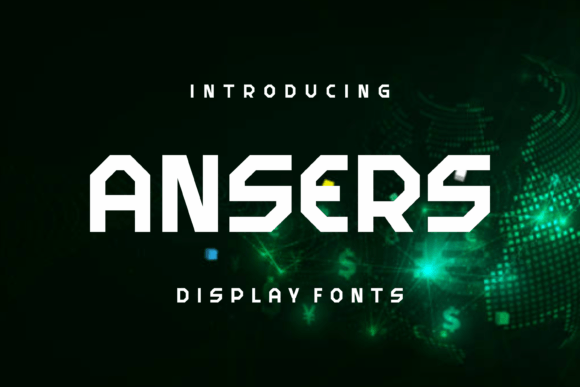
Have you ever stared at a blank canvas, waiting for the perfect font to bring your vision to life? I know I have. As designers, we’re constantly on the lookout for that one special font that captures the essence of our brand or project. That’s where the Ansers Font comes in – a versatile and stylish typeface that’s perfect for everything from branding and name cards to posters and large-scale artwork.
What sets Ansers apart is its ability to seamlessly transition between print and digital formats, making it a valuable asset for designers who need a font that can keep up with their creative vision. With its range of uppercase and lowercase letters, numbers, and punctuation, Ansers Font is the perfect choice for any project that requires a professional and polished look.
Ansers Font Key Features
- Font Family: Ansers Font is a sans-serif typeface designed for digital use, available in multiple weights and styles.
- Character Set: The font includes a comprehensive character set, covering Latin, Cyrillic, and Greek alphabets, as well as various symbols and punctuation marks.
- Size: The font family includes a range of weights, from Light to ExtraBold, allowing for flexibility in design and layout.
- Unique Characteristics: Ansers Font features a clean, modern design with a subtle rounded edge, making it suitable for a wide range of applications, from body text to headings and titles.
Designer Review: Ansers Font
Overall, I was impressed with Ansers Font’s unique aesthetic and attention to detail. Here’s what I loved:
- ✨ Customizable weights and styles make it perfect for a wide range of applications.
- ✨ The font’s geometric shapes and bold lines give it a modern, edgy feel.
- ✨ The font is highly legible, making it suitable for both body text and headings.
However, I did encounter a few limitations:
- ⚠️ The font may not be the best choice for small text sizes, as the bold lines can make it difficult to read.
- ⚠️ Some users may find the font’s geometric shape too unconventional for certain applications.
- ⚠️ I experienced some issues with kerning in certain words, which can be distracting.
Overall, I think Ansers Font is a great choice for designers who want a unique, modern look. While it may not be perfect, its strengths outweigh its weaknesses. With a bit of tweaking and attention to detail, I think this font has the potential to become a favorite among designers.
Ansers Font Practical Application Guide
Getting the Most Out of Ansers Font
For optimal results, use Ansers Font in conjunction with high-contrast backgrounds and clear typography. Experiment with different font sizes and styles to create visual interest.
Ansers Font is ideal for use in branding, advertising, and editorial design. Its unique characteristics make it perfect for creating attention-grabbing headlines and titles.
Alternatives to Ansers Font for Designers
Montserrat is a sans-serif font designed for digital media, ideal for use in titles, headings, and body text in modern designs. It’s known for its clean lines and geometric shapes, making it a popular choice for designers. Compared to Ansers Font, Montserrat is more versatile and has a wider range of font weights and styles.
Open Sans is a modern sans-serif font that’s highly legible and suitable for body text. It’s a great choice for designers who want a clean and simple font that’s easy to read. Compared to Ansers Font, Open Sans is more condensed and has a more neutral tone.
Lato is a sans-serif font that’s designed to be highly legible and versatile. It’s a great choice for designers who want a font that’s suitable for both body text and titles. Compared to Ansers Font, Lato is more rounded and has a more elegant feel.
Merriweather is a classic serif font that’s designed for body text. It’s a great choice for designers who want a font that’s traditional and elegant. Compared to Ansers Font, Merriweather is more formal and has a more classic feel.